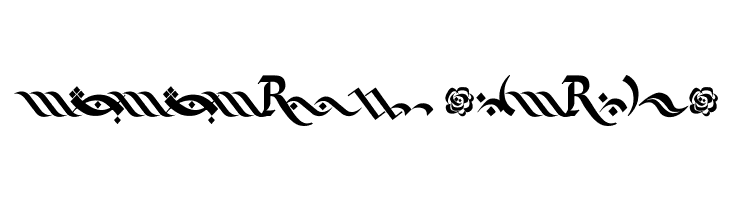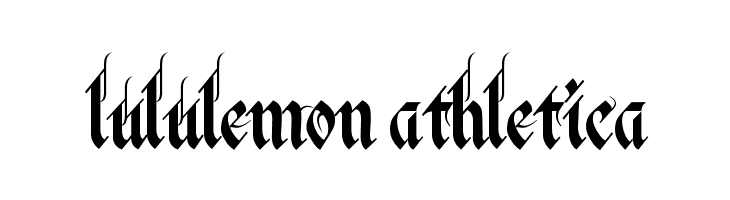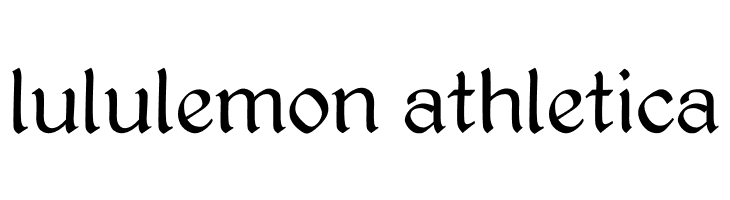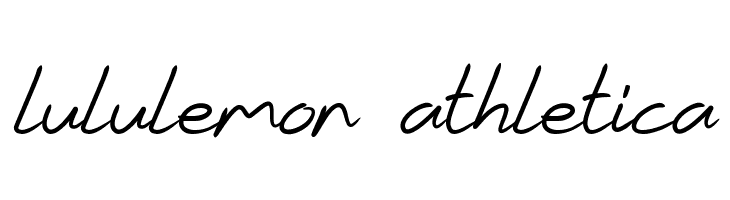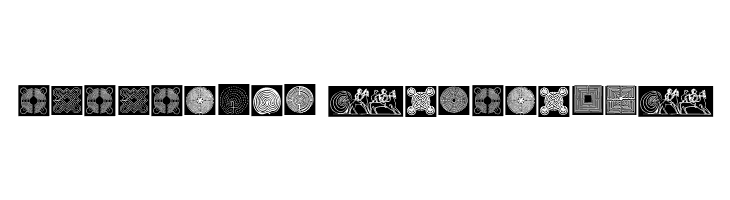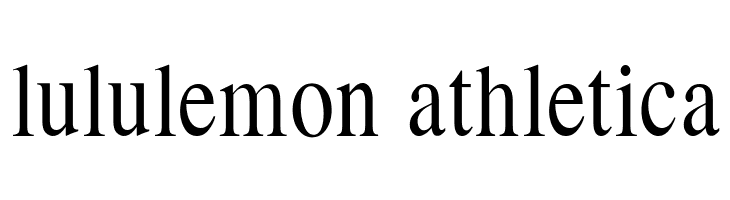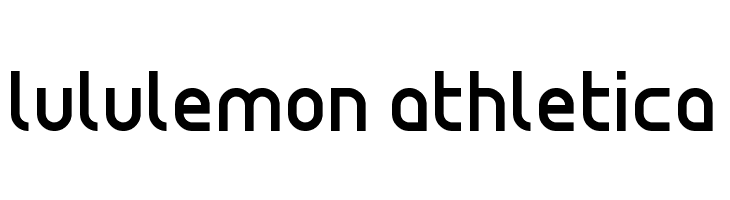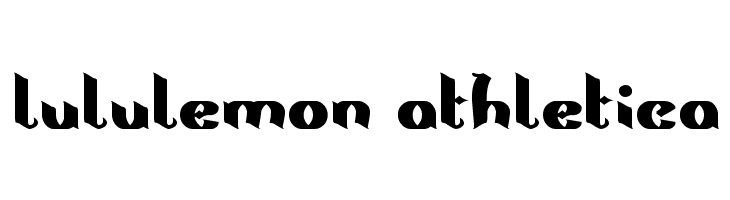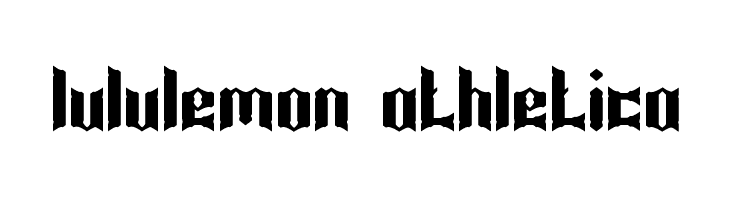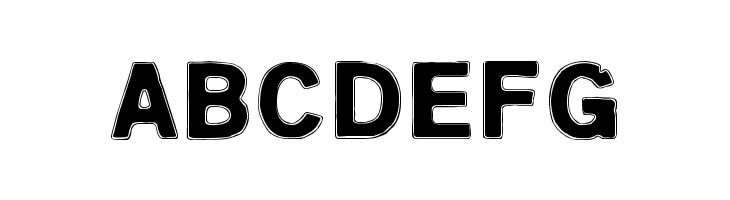
A bold, gothic-inspired font with ornate and decorative characters.
An ornate and decorative font with intricate flourishes and embellishments.
A bold and ornate blackletter font with intricate details and historical elegance.
A fluid and elegant script font with a handwritten appearance.
A bold, robust font with rounded edges and a strong presence.
An ornamental display font with each character depicted as a unique labyrinth or maze.
A classic serif font with elegant strokes and balanced proportions.
A bold, gothic-style font with sharp angles and a medieval flair.